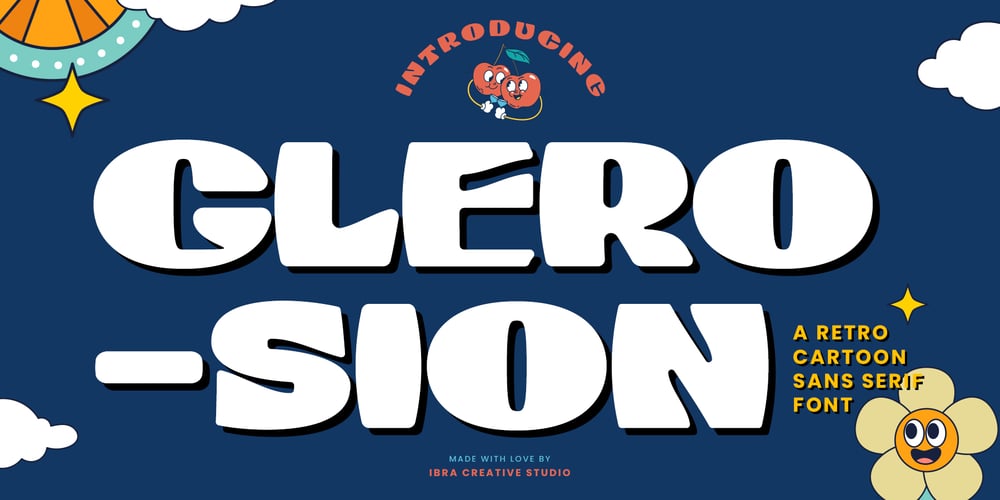
Glerosion
Glerosion font
Glerosion Font Family was designed by Roisatul Azizah and published by IbraCreative. Glerosion contains 1 styles and family package options. Glerosion – A Retro Cartoon Sans Serif FontGlerosion, a retro cartoon sans-serif font, exudes a playful and nostalgic charm that effortlessly transports viewers to a bygone era. With its whimsical and rounded letterforms, Glerosion captures the essence of classic cartoon aesthetics, reminiscent of beloved animated shows from the mid-20th century. The font strikes a harmonious balance between a timeless simplicity and a distinct vintage flair, making it a versatile choice for a range of creative projects that seek to evoke a sense of lightheartedness and retro appeal. Glerosion’s characters possess a delightful quirkiness, embodying the spirit of yesteryear while maintaining a modern edge that lends itself well to a variety of design applications, from branding to editorial design and beyond.Glerosion is perfect for branding projects, logo, wedding designs, social media posts, advertisements, product packaging, product designs, label, photography, watermark, invitation, stationery, game, fashion and any projects.Fonts include multilingual support for; Afrikaans, Albanian, Czech, Danish, Dutch, English, Estonian, Finnish, French, German, Hungarian, Italian, Latvian, Lithuanian, Norwegian, Polish, Portuguese, Slovak, Slovenian, Spanish, Swedish.